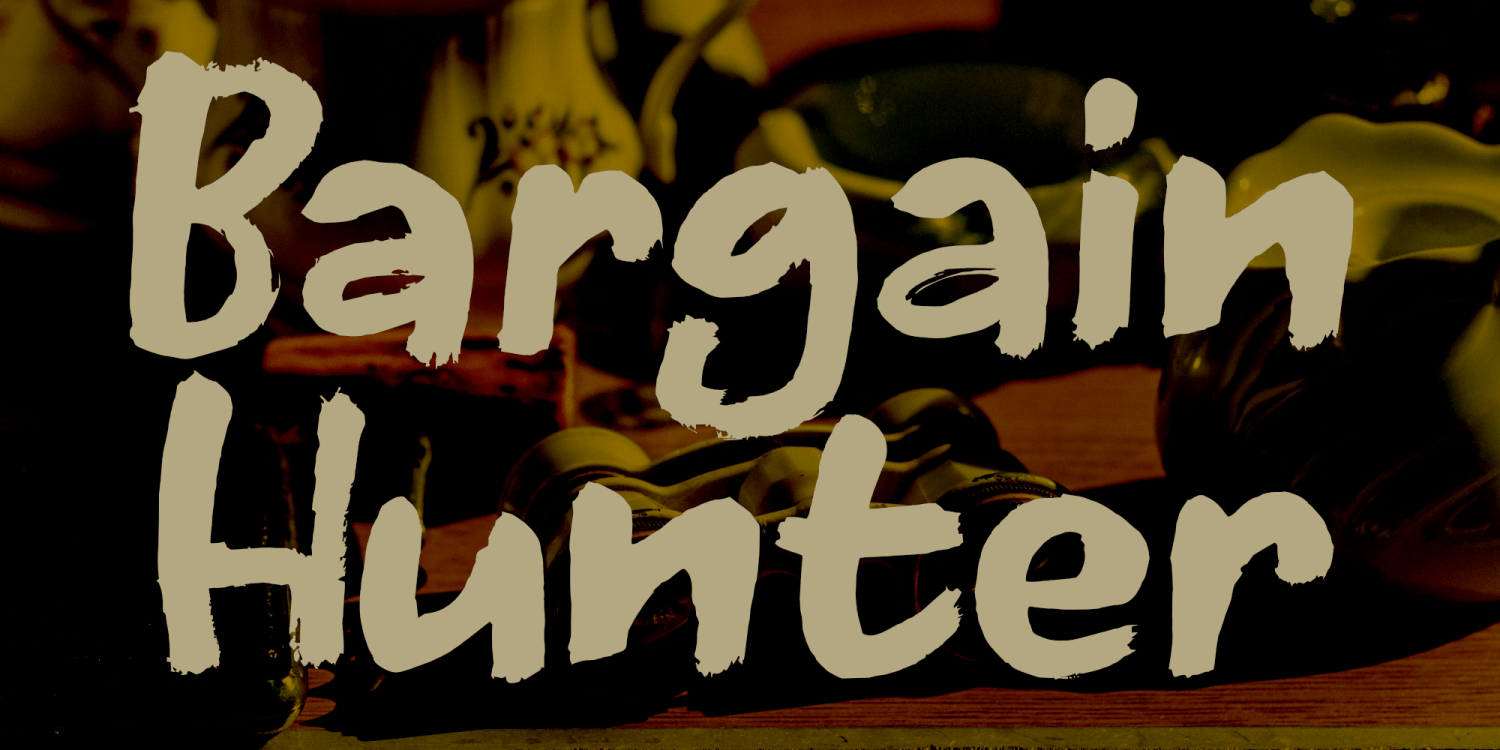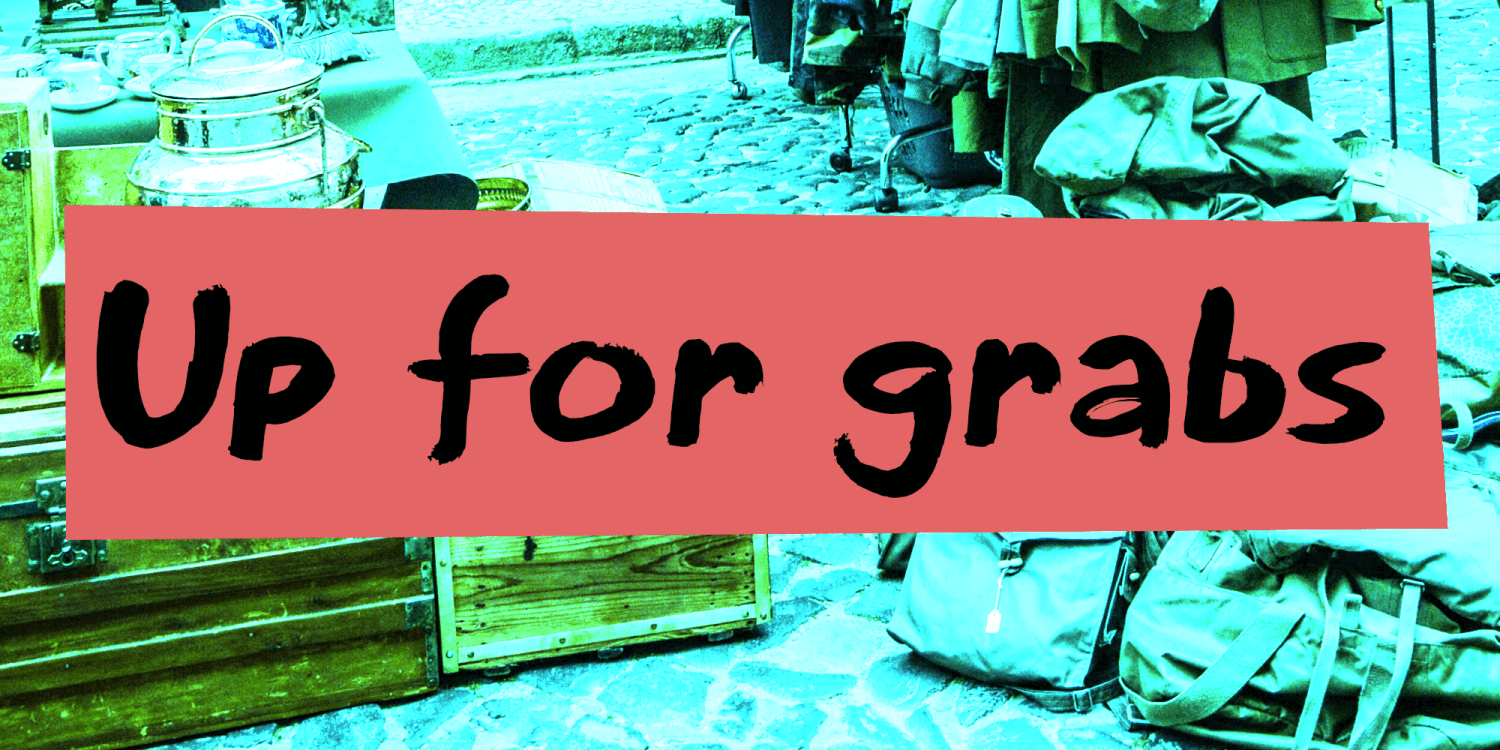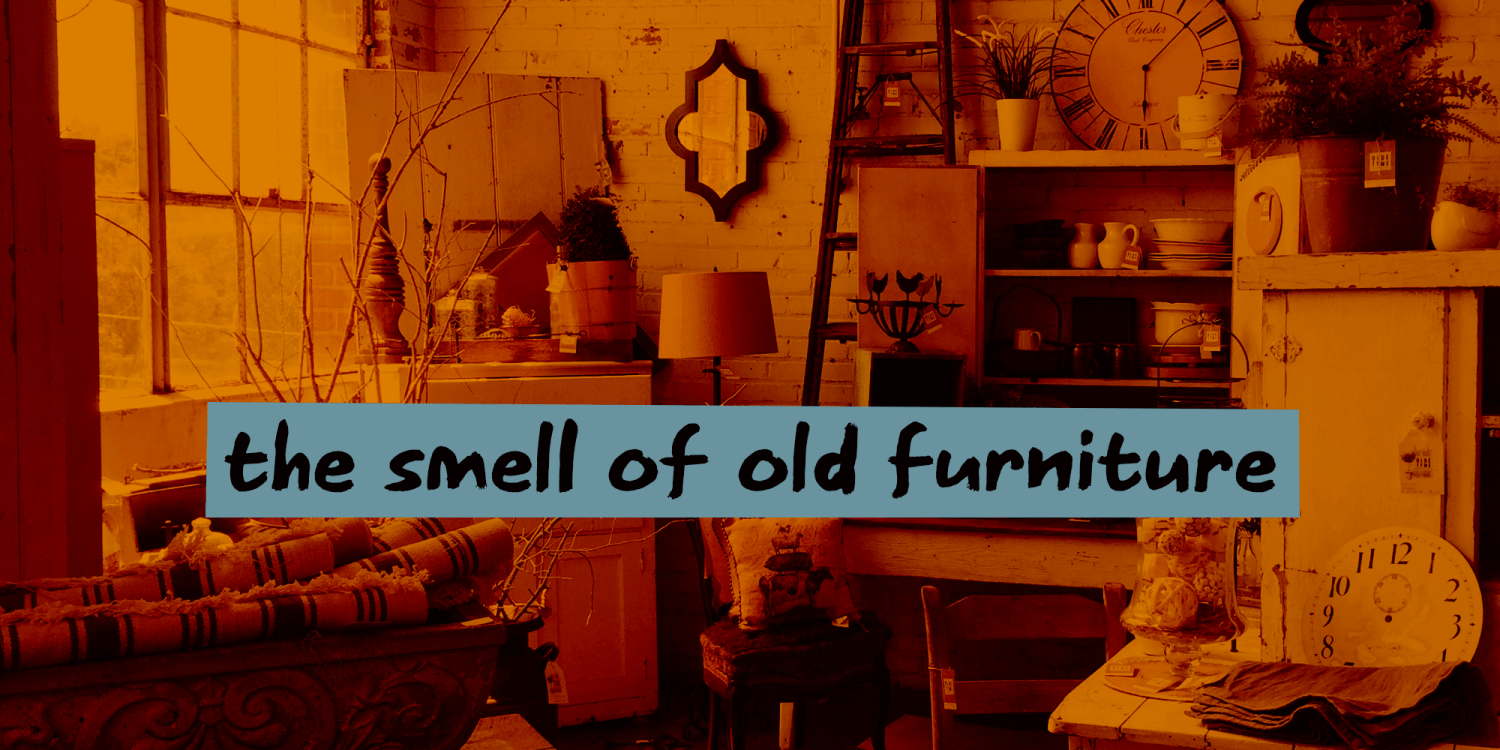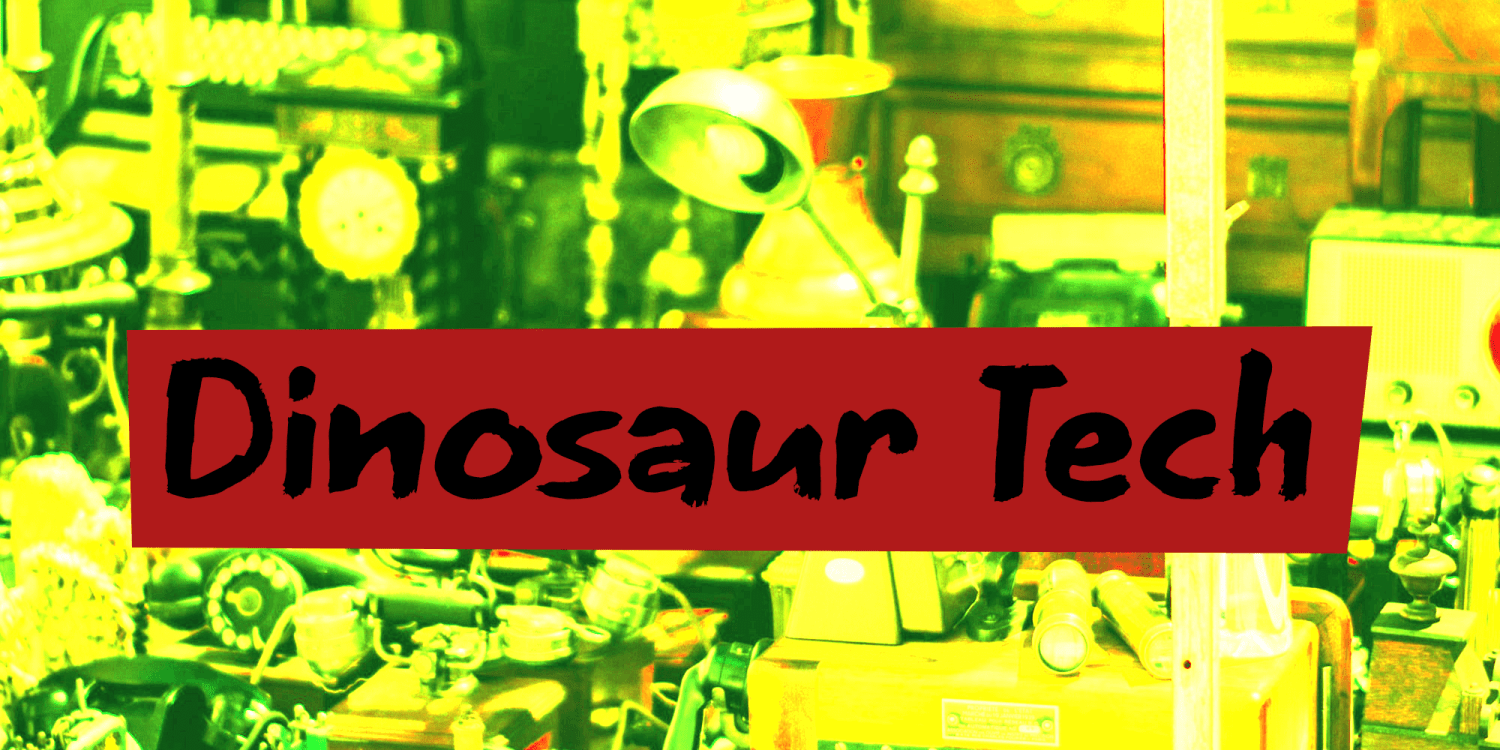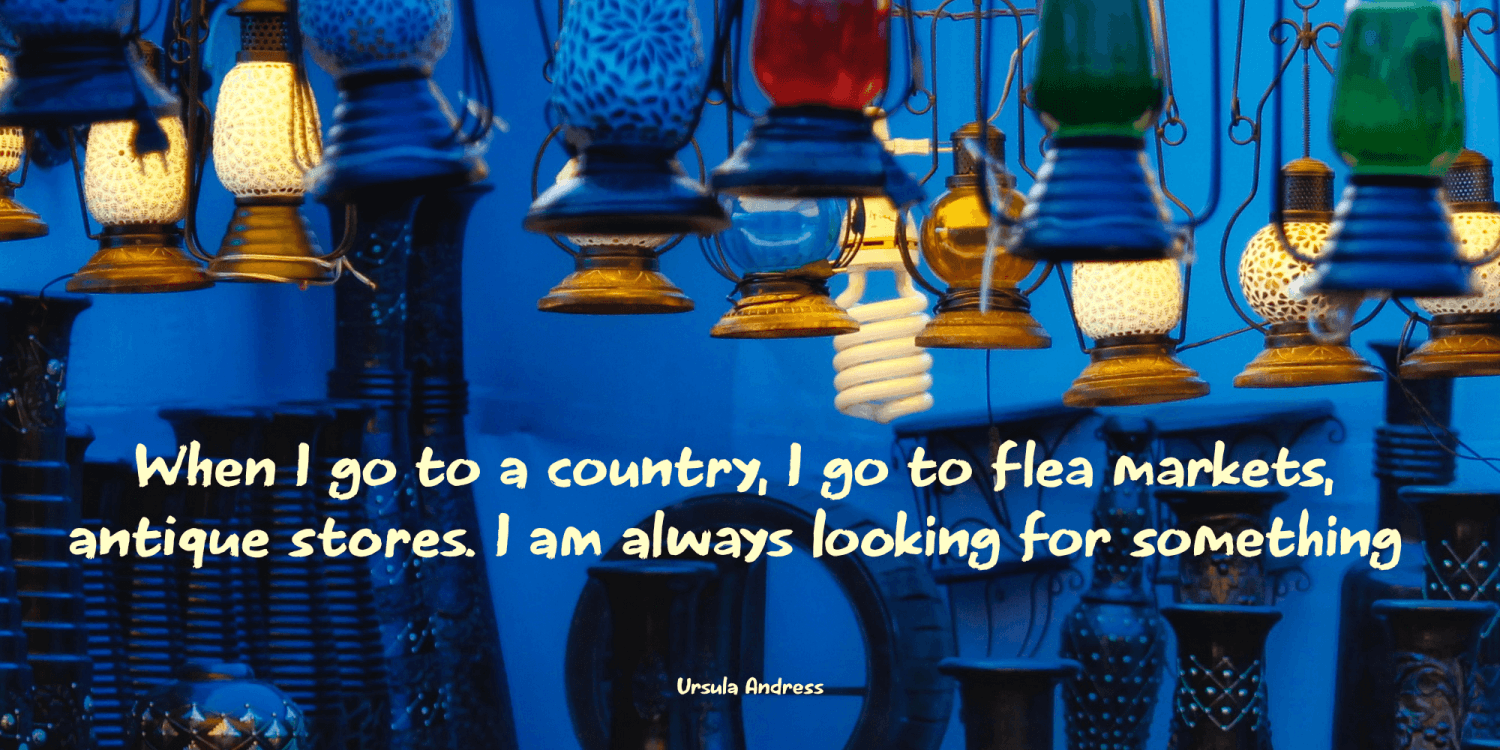
Bargain Hunter
Description: I am somewhat of a bargain hunter. Not at all cost, mind you, but I like a discount! Having said that, I guess I am not a true bargain hunter, because I only buy stuff I need; not because it is a bargain. I also refuse to buy fake items or products that are unsustainably produced.
Bargain Hunter is a font I made with a cheap pencil (a bargain!) and my trusted Chinese Ink (environment friendly). It comes with a set of alternates and all the accents you need.